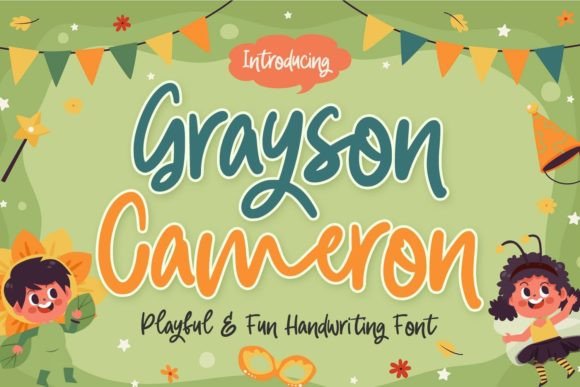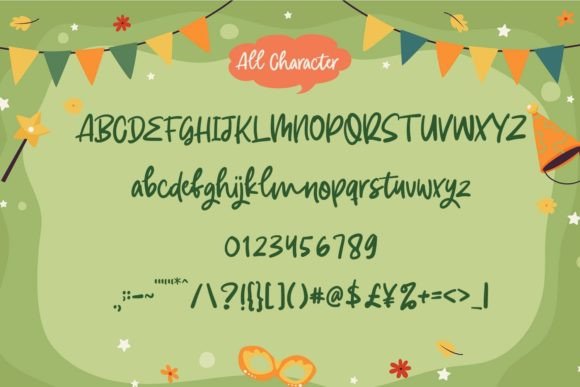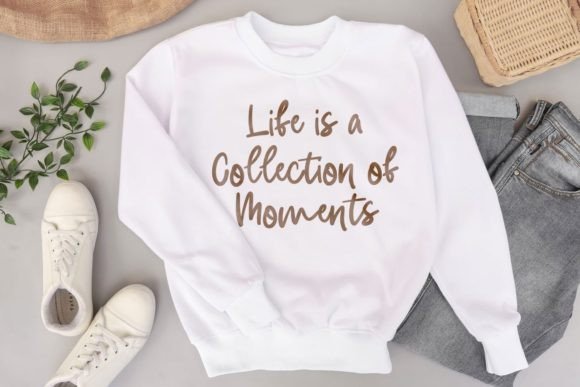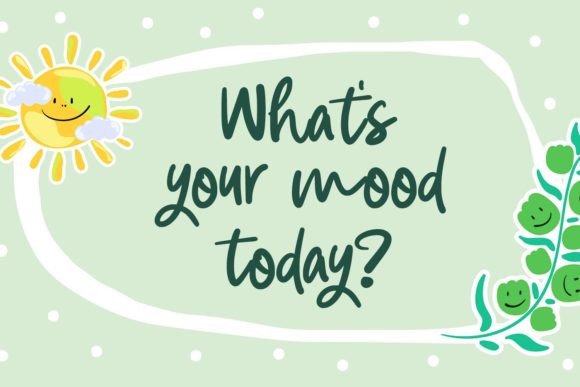
About Grayson Cameron Font
Grayson Cameron is a charming and trendy handwritten font that captivates with its sweet and joyful style. Perfect for a variety of creative projects, this font adds a touch of cuteness and trendiness to your designs. Whether you’re working on wedding invitations, stationary art, or eye-catching social media posts, Grayson Cameron is designed to enhance your creations.
The cute and joyful style of Grayson Cameron is evident in its carefully crafted letterforms. The font exudes a sense of playfulness and charm, making it an ideal choice for projects that require a delightful and trendy aesthetic. Its versatility allows it to adapt to various design contexts.
Whether you’re creating gorgeous wedding invitations, beautiful stationary art, or engaging social media posts, Grayson Cameron brings a fresh and modern vibe to your projects. The font’s trendy handwritten style adds a personal touch to your designs, making them stand out with a unique and joyful flair.
Fall in love with the cute and trendy charm of Grayson Cameron, and let it be the font that elevates your creative projects. From the sweetness of wedding invitations to the vibrancy of social media graphics, Grayson Cameron provides a playful and stylish foundation for a variety of design applications. Incorporate Grayson Cameron into your toolkit and experience how it brings a touch of joy and trendiness to your creations.